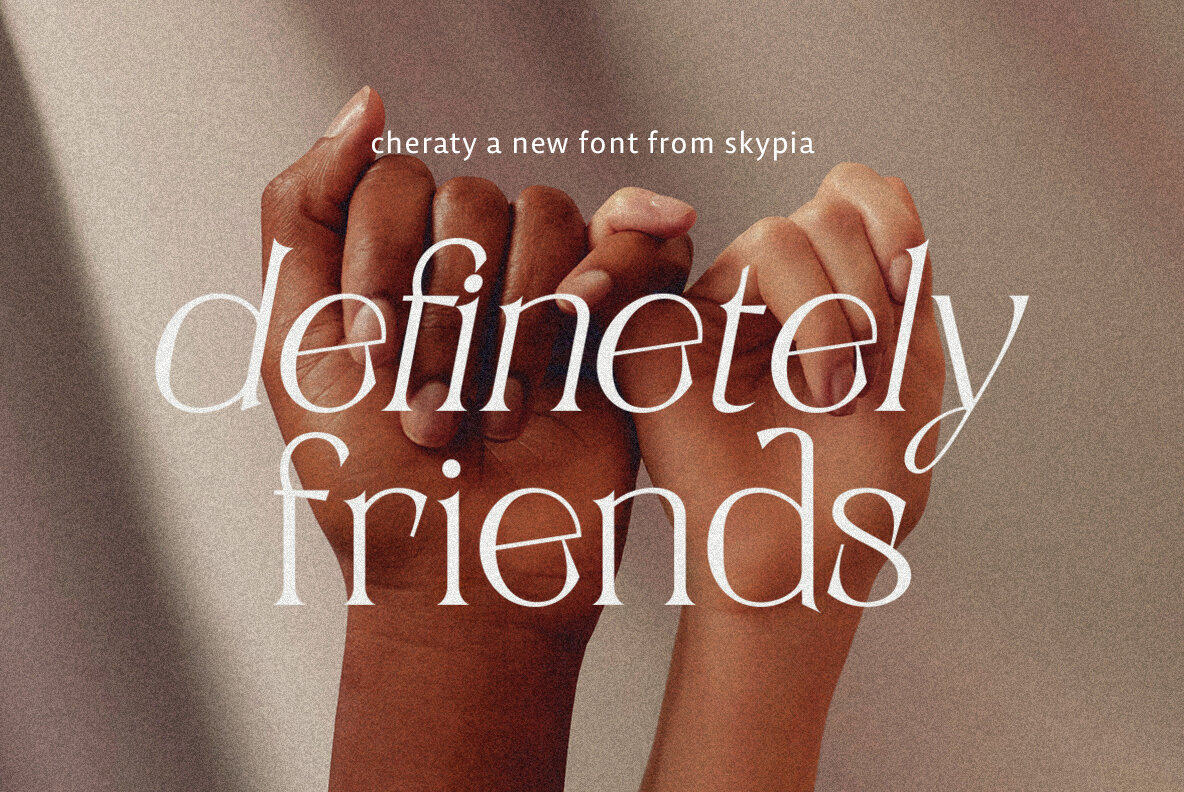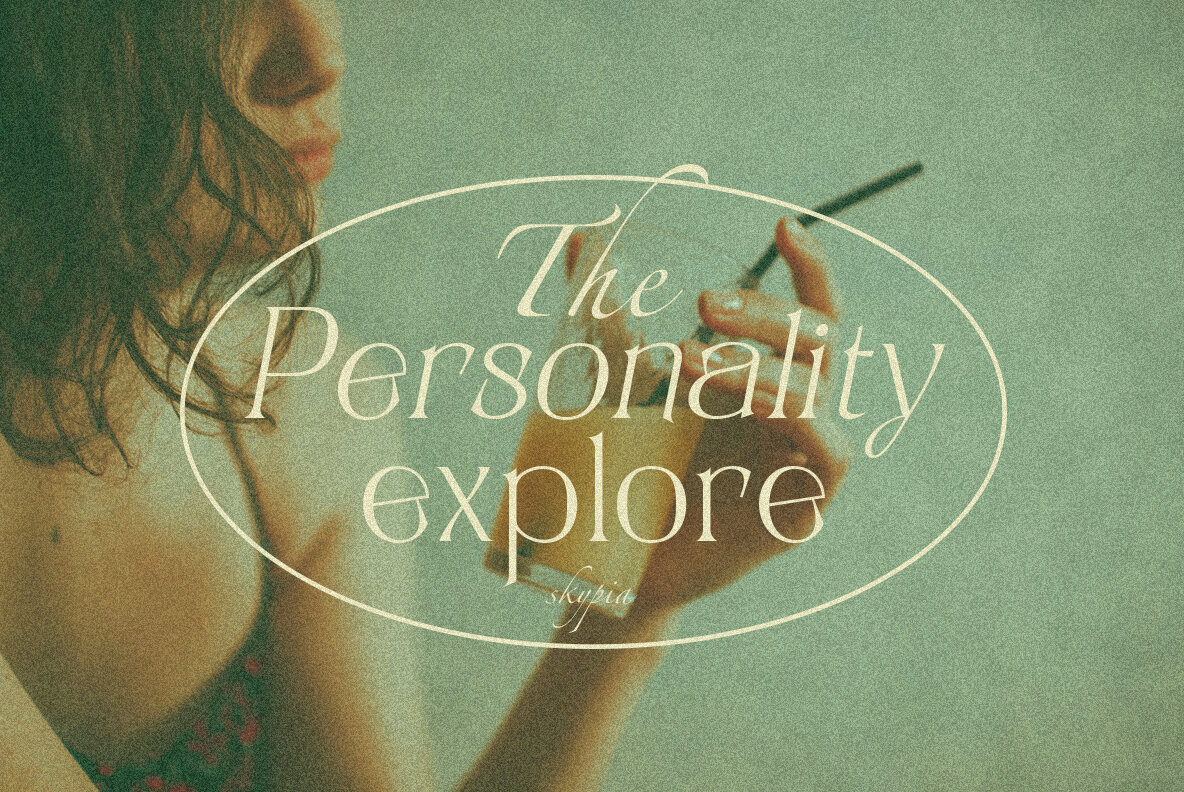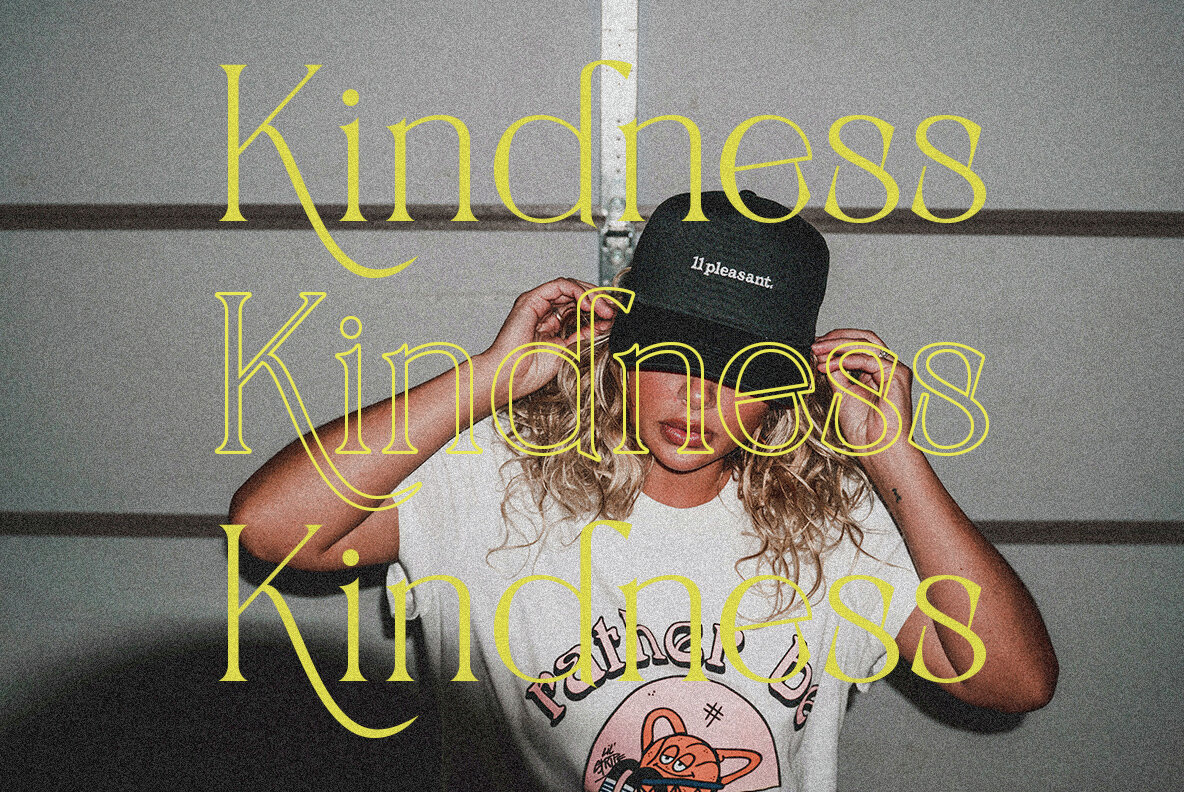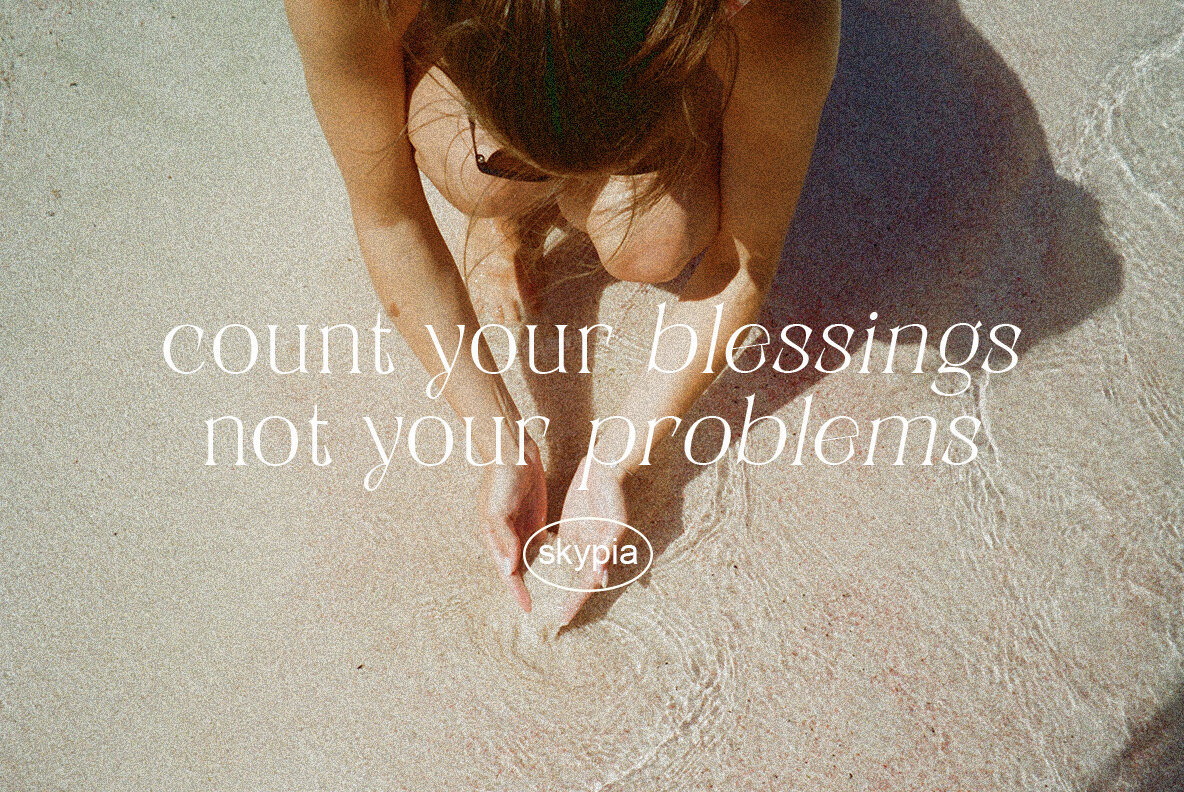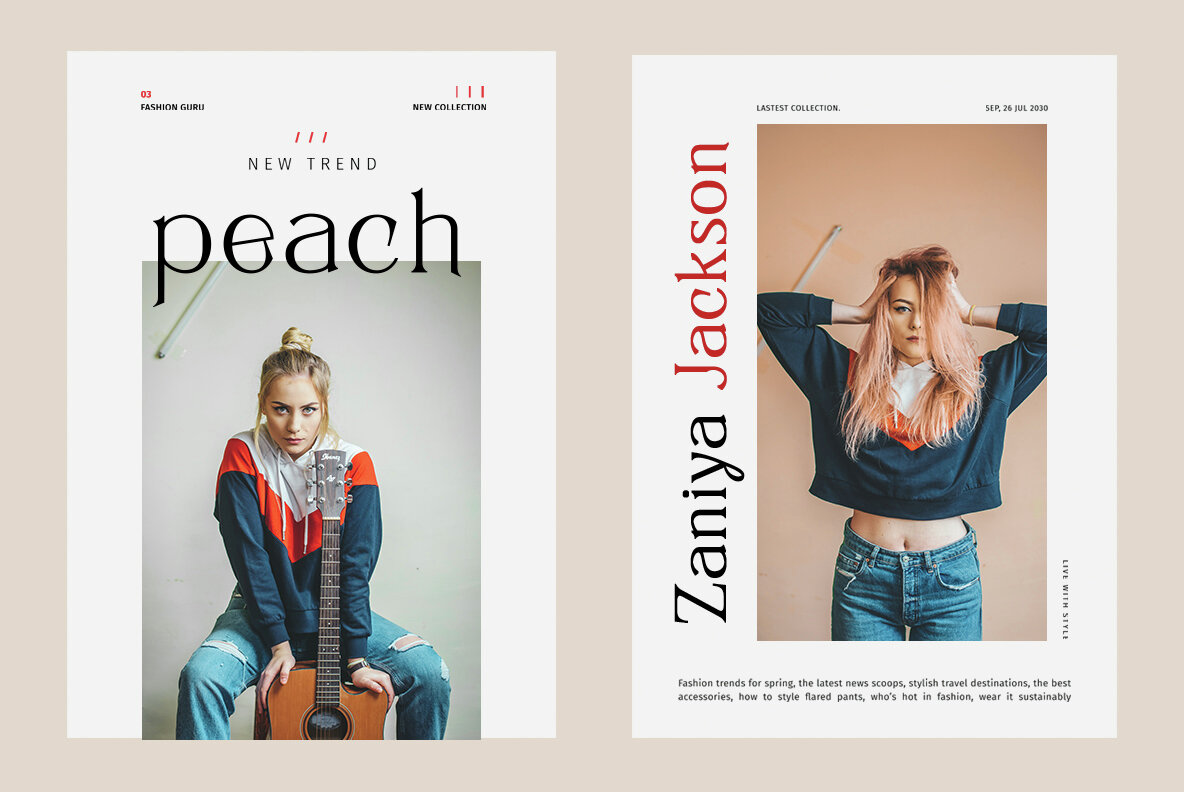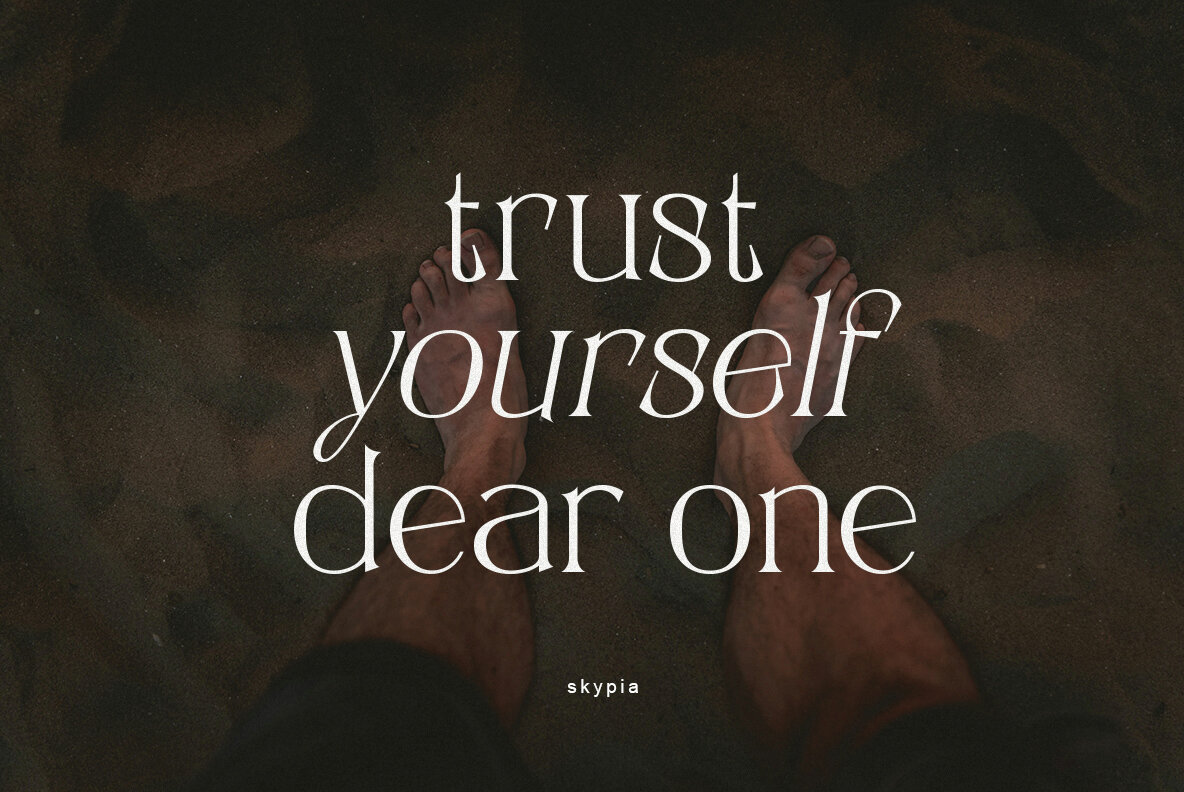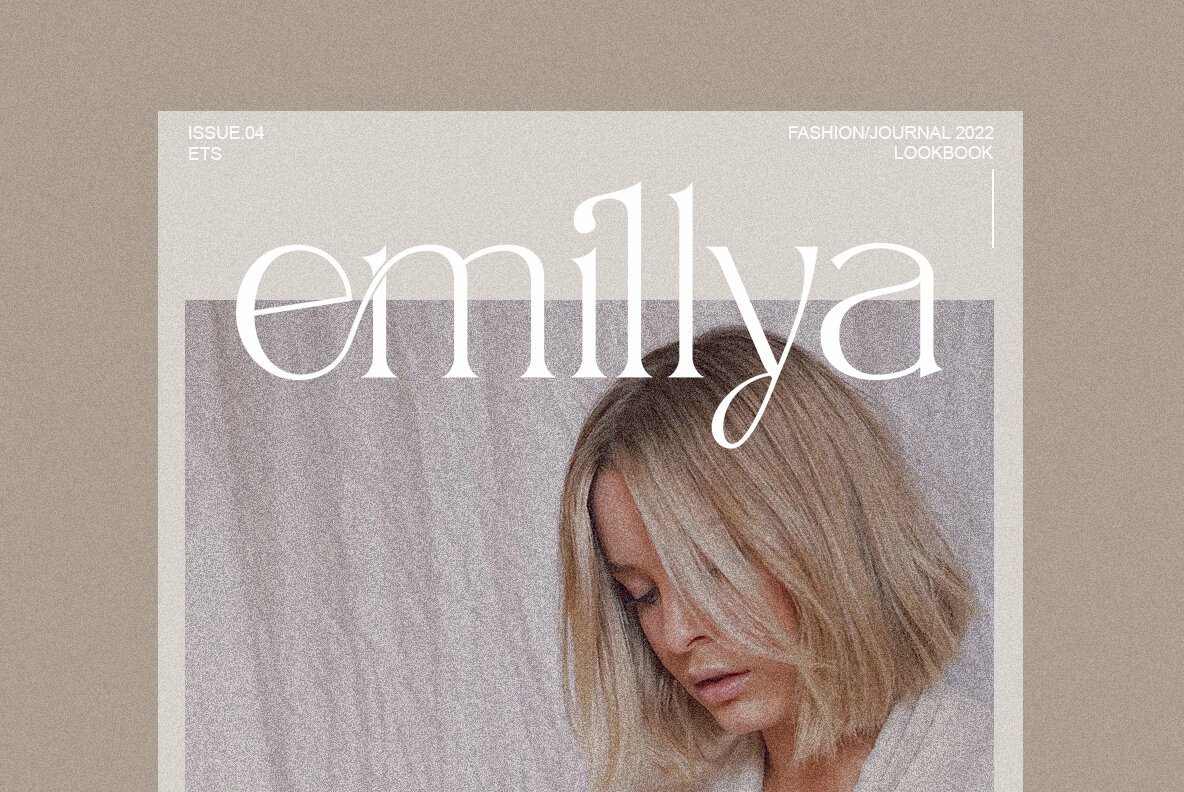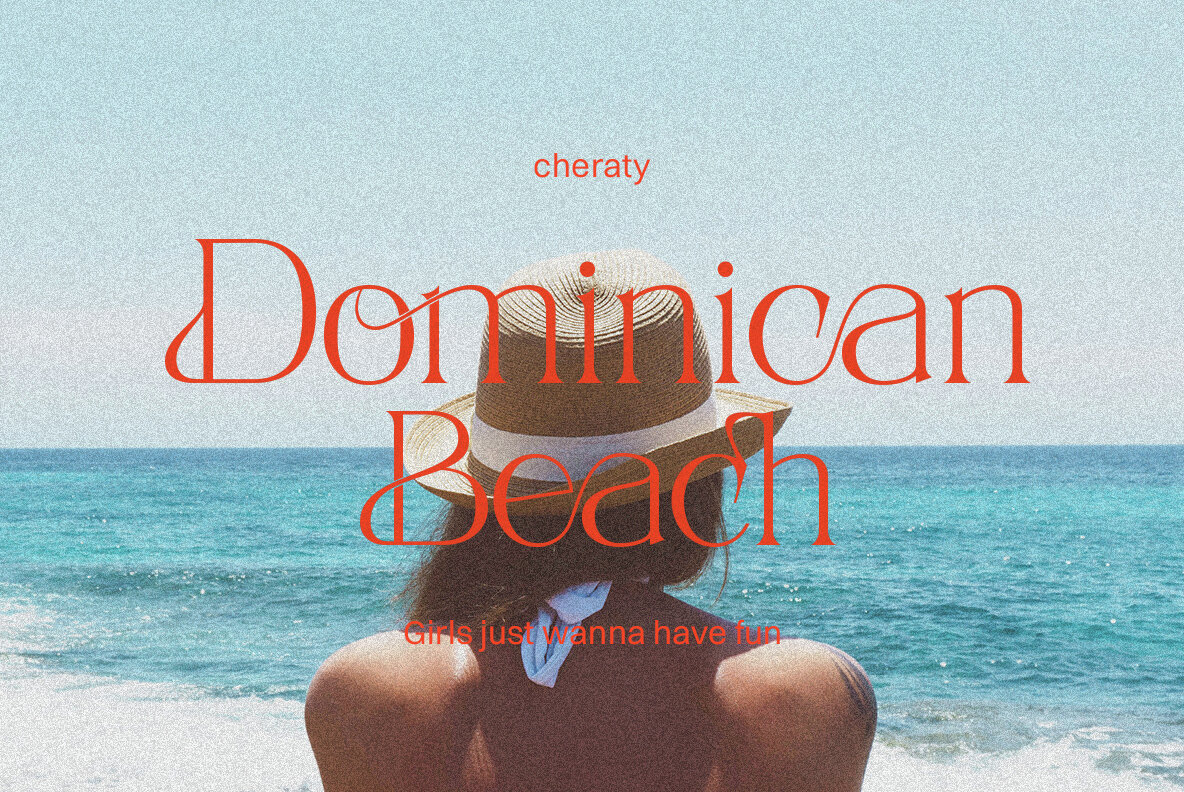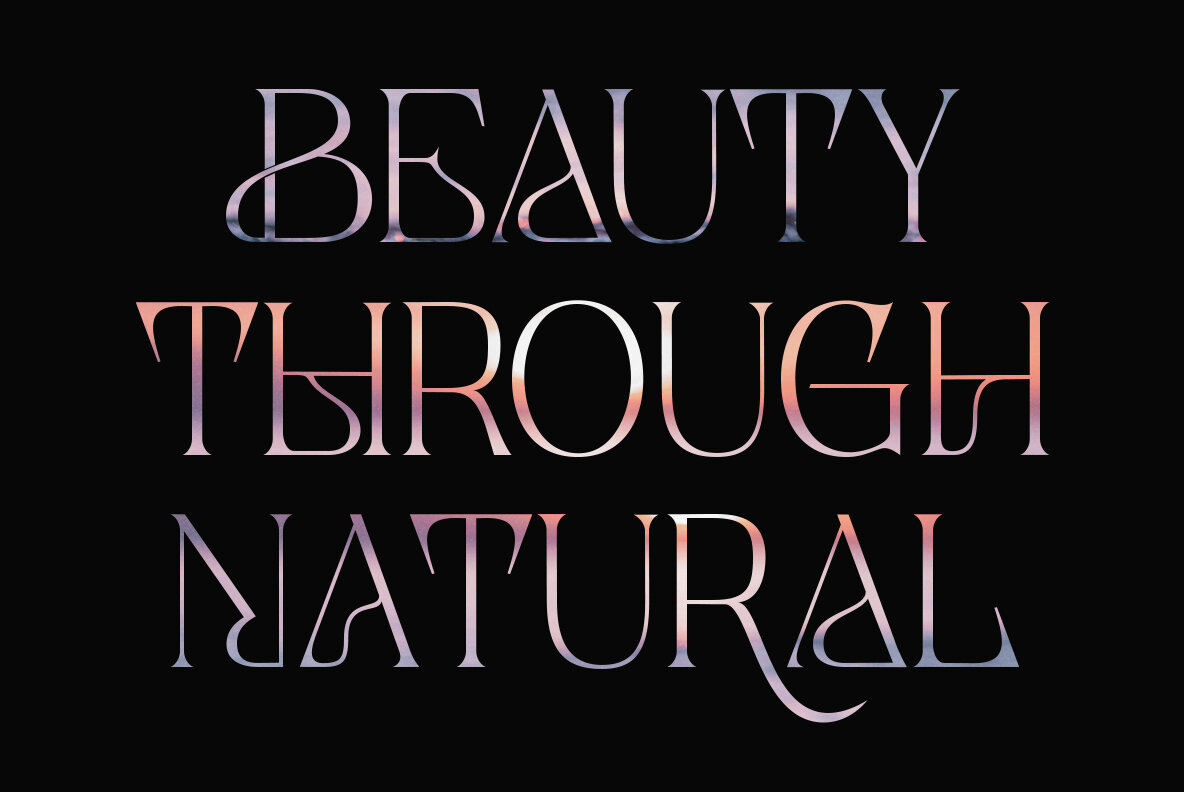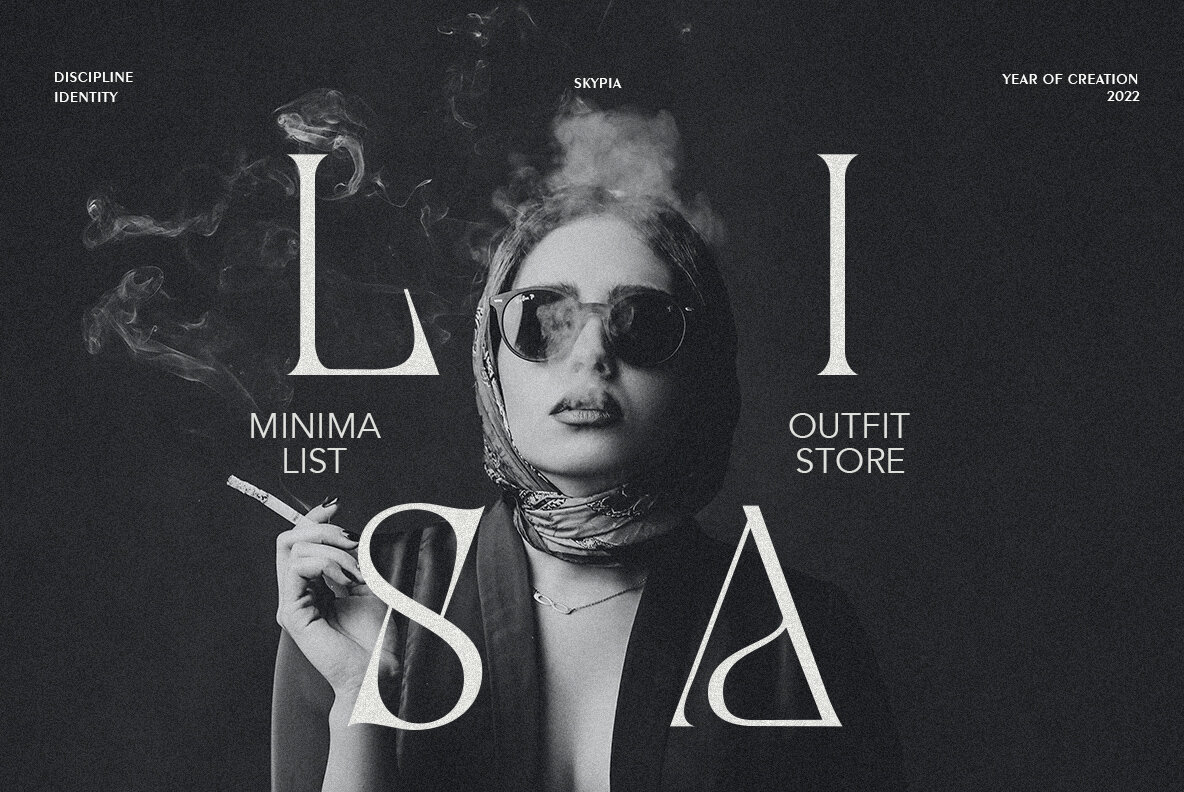
Cheraty Font
Cheraty Regular
Cheraty Italic
Cheraty Outline
Cheraty - a sophisticated, charming serif with a fashionable touch. Specially designed for luxury, elegant, feminine projects, Cheraty is perfectly suitable for creating modern, chic design such as logos, packaging, editorial, and more. What is included: Features